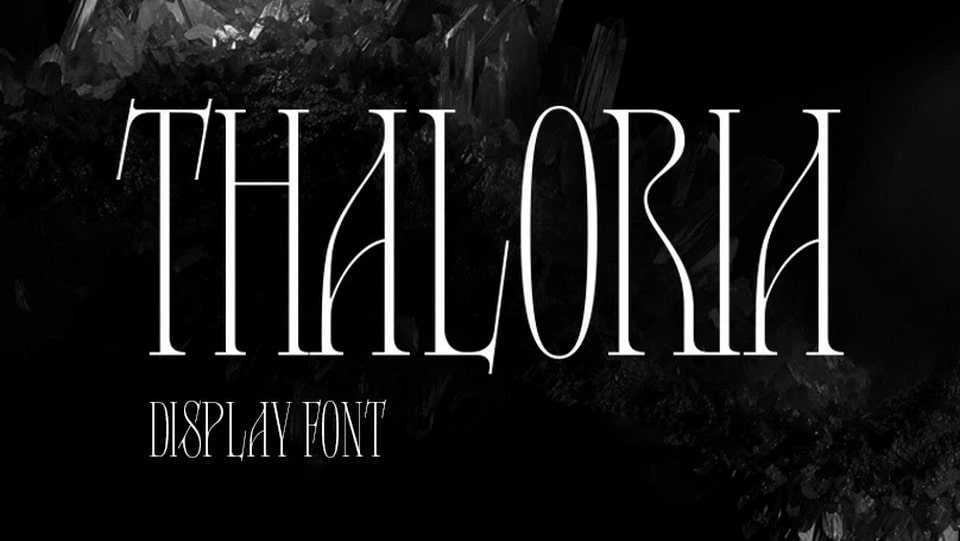
Download Thaloria font, an elongated serif typeface inspired by Art Nouveau magazine covers and certain forms of Old Slavonic letters. Asymmetrical, spike-like serifs give the font a light Gothic character, while high contrast makes it more refined.